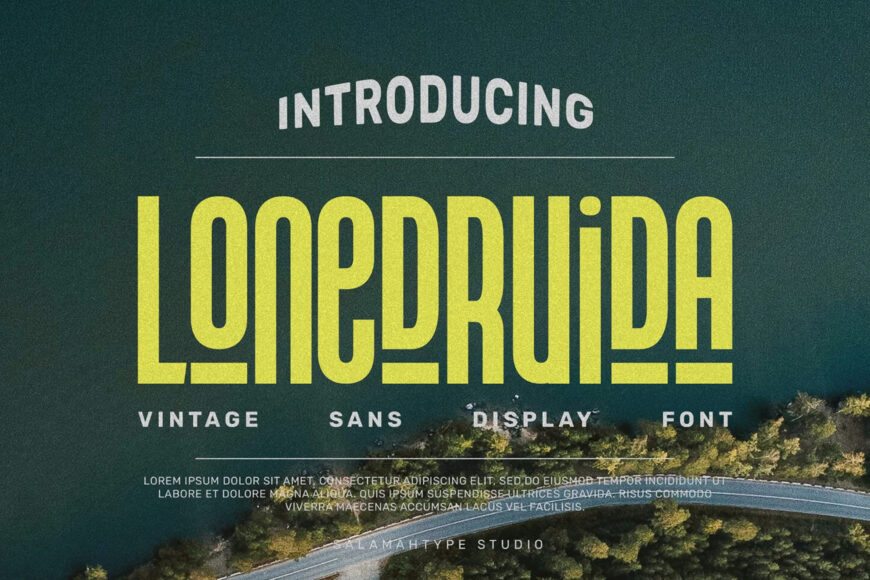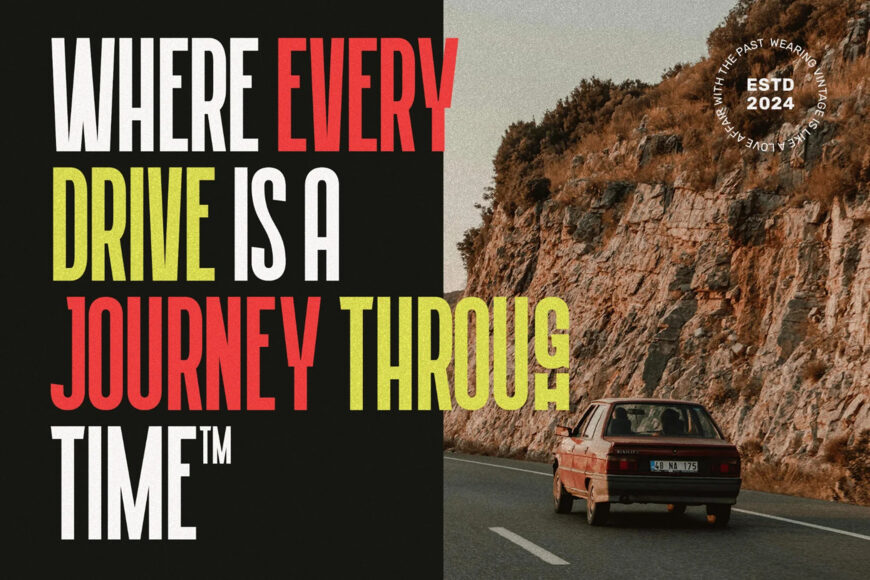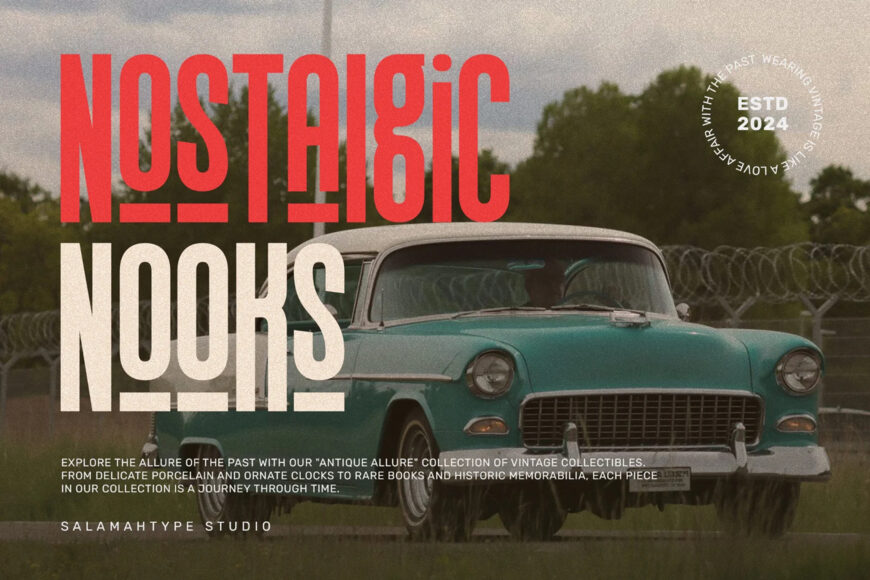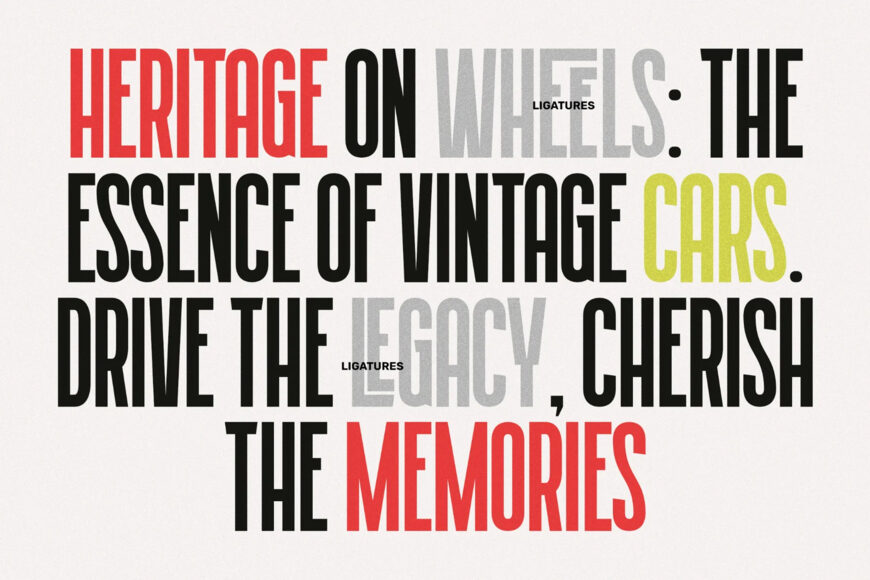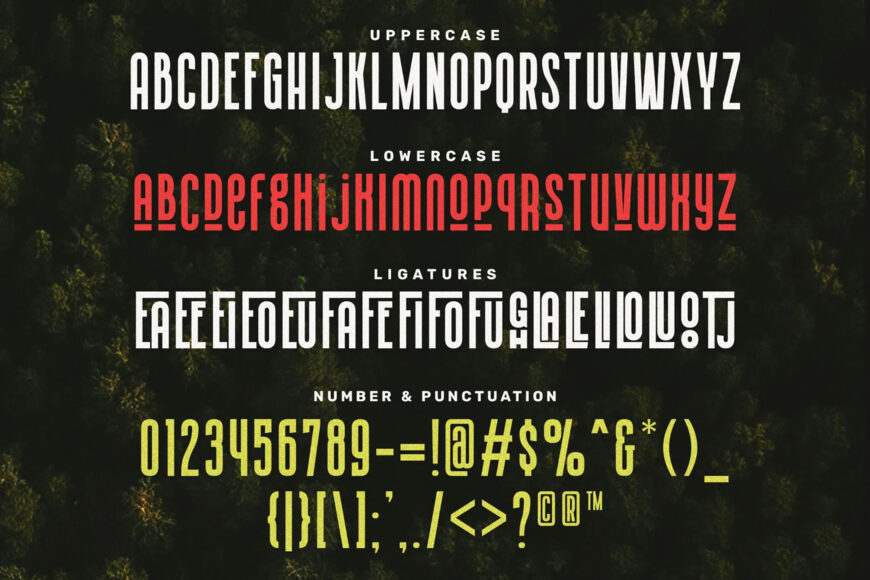
Lonedruida Font
Lonedruida is a slim and stylish condensed font created mostly for logos, headlines, magazines, and other print media. This font’s especially slim forms give it a modern and attractive sense, resulting in a clean and crisp appearance.
Another feature of Lonedruida is its extensive ligatures, which provide an artistic and solid touch to the text, making it more attractive and elegant. Ideal for designs that demand unique and characterful font.